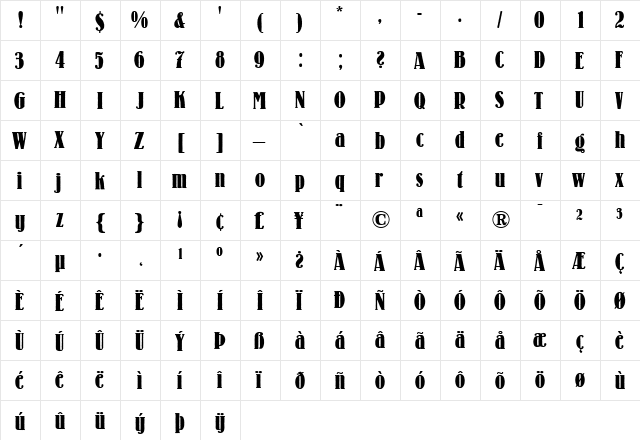
Lo-Type-CondensedMedium Medium
Design Context for Lo-Type-CondensedMedium Typeface
Lo-Type-CondensedMedium offers clean, dependable letterforms without strong stylistic allegiance, making it a practical choice for designers who need flexibility. Its narrow stance lets it pack a punch even in space-constrained designs.